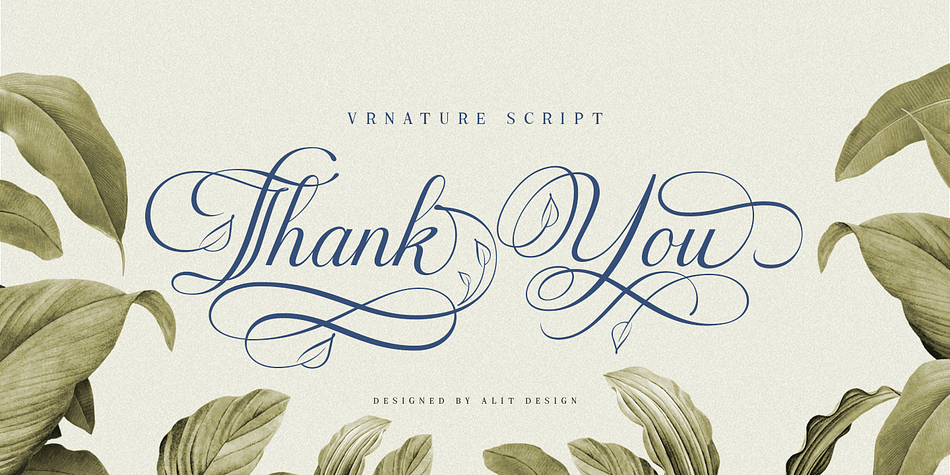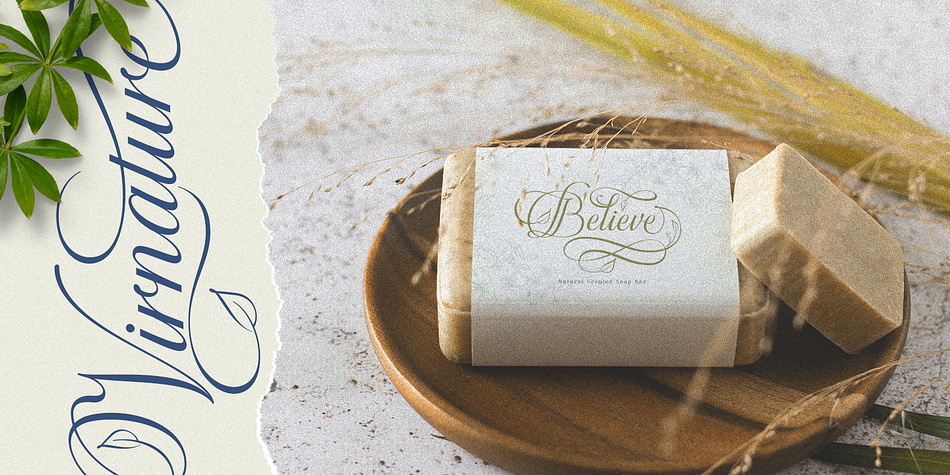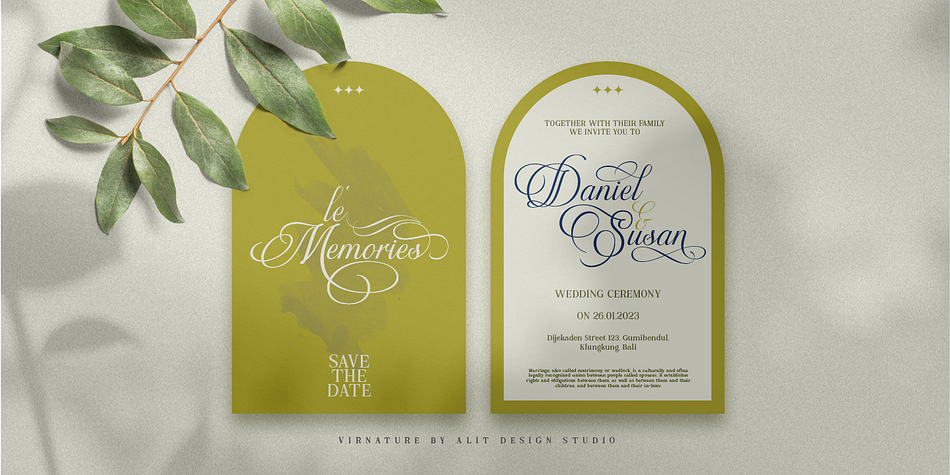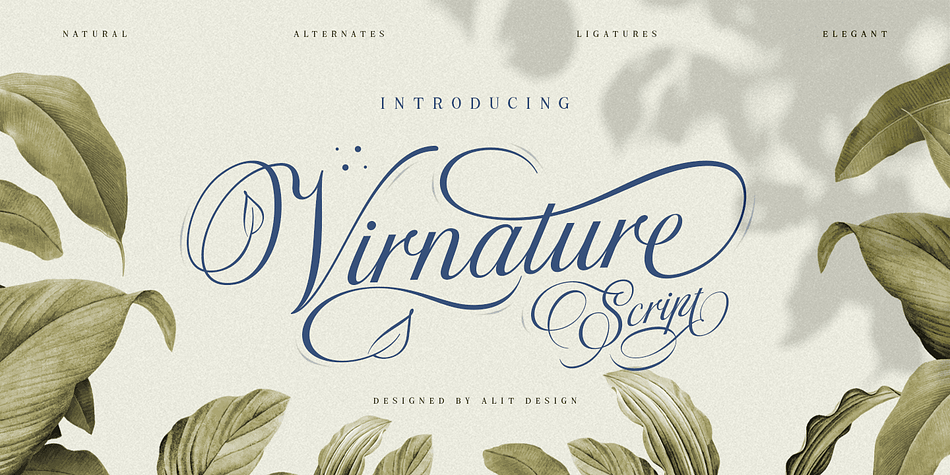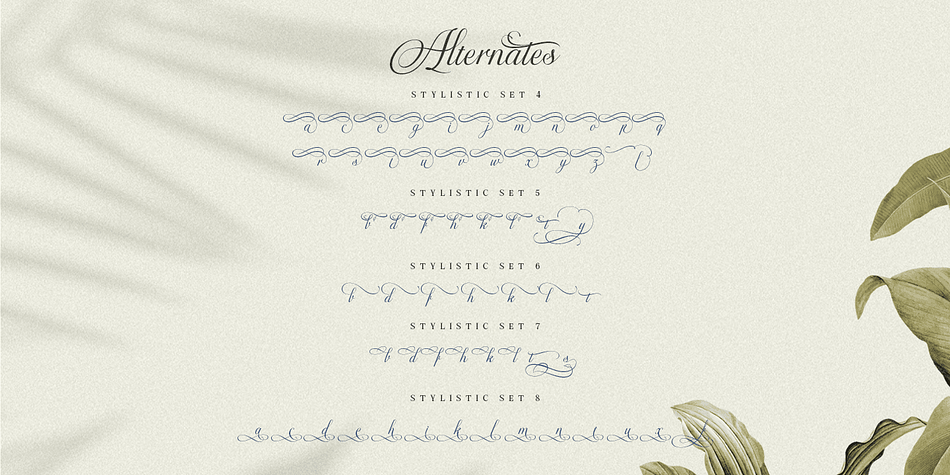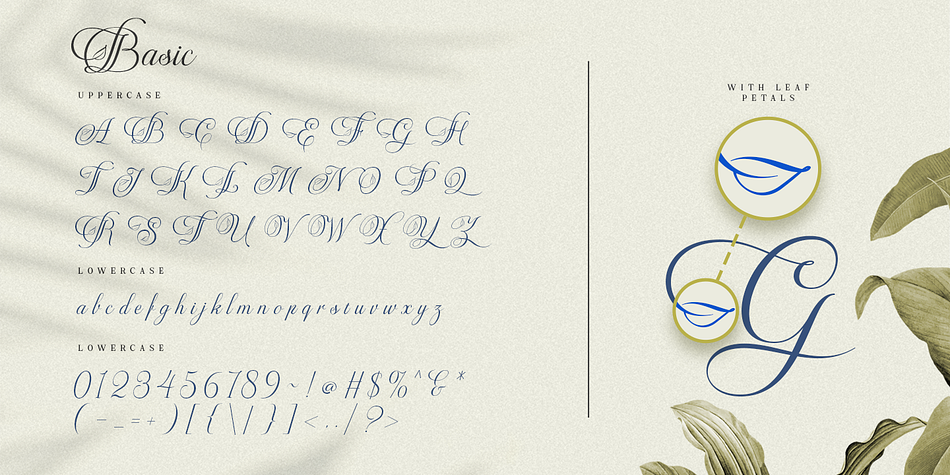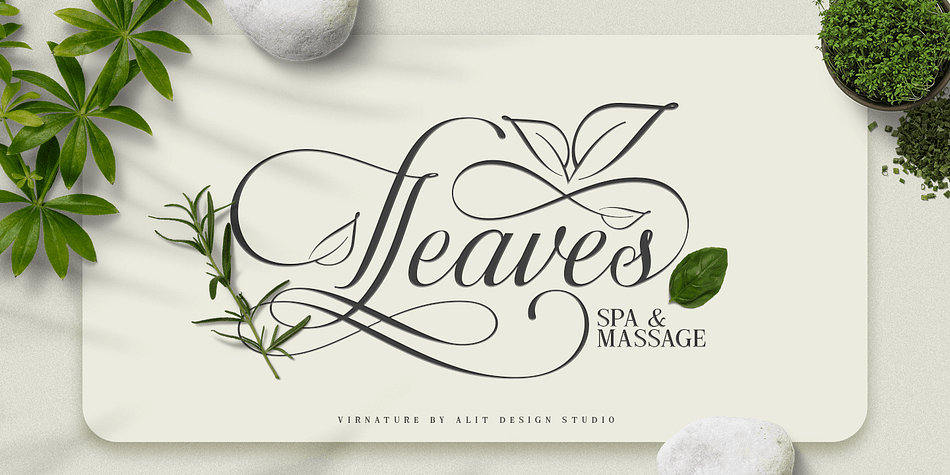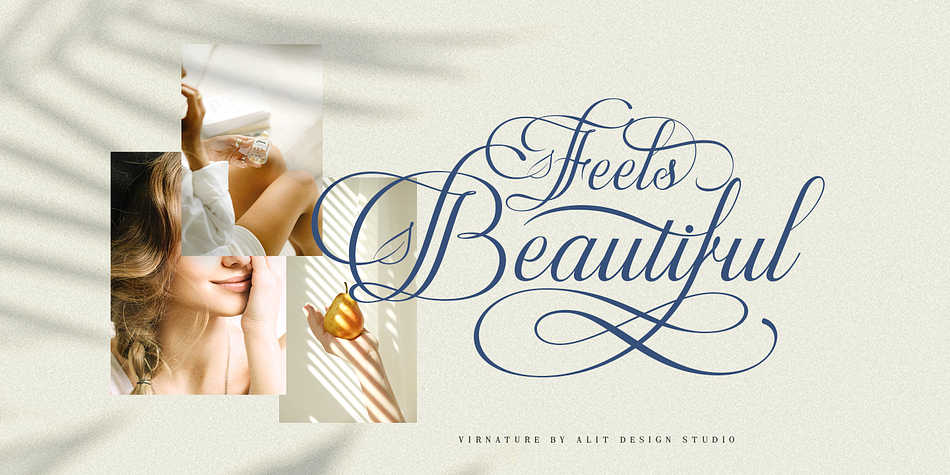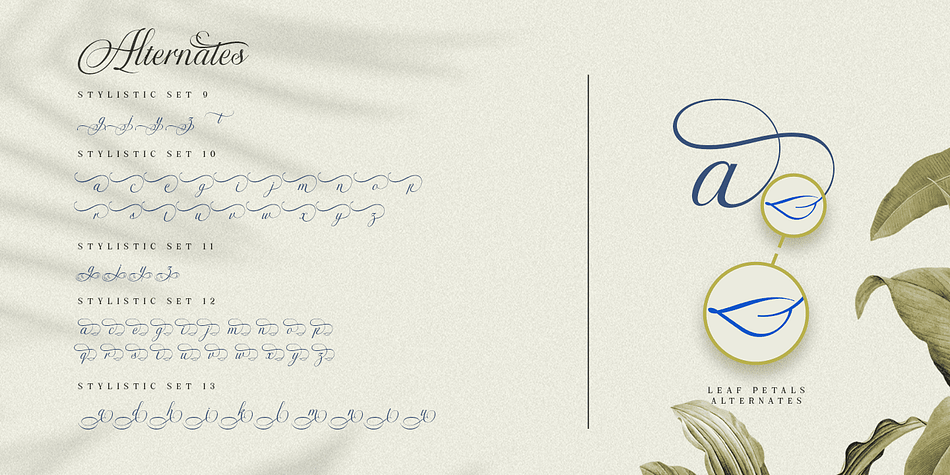
The Virnature
Designed by Alit Suarnegara, The Virnature is a script font family published by Alit Design.
Presenting ????The Virnature Nature Script Font???? by alitdesign.
Welcome to the Virnature font page, Thank you for visiting and finding this font. The Virnature font is inspired by elegant script fonts combined with the concept of nature. It can be seen by the beautiful and fitting leaf ornaments that make the Virnature font besides elegance also unique with the concept of nature.
The Virnature font includes full set of Uppercase and Lowercase Basic Characters, Numerals, Punctuation and Multi lingual support. Also it contains ligatures and a lot of stylistic alternatives to perfectly re-create natural calligraphy and nature concept designs (check the previews in order to see them all).
The Virnature font has alternatives that you can combine between swashes and symbols that have the theme of elegant nature. Besides that this font is very easy to use both in design and non-design programs because everything changes and glyphs are supported by Unicode (PUA).
The Virnature Nature Script Font has a total of 768 glyphs including symbol, multilingual.
Language Support : Latin, Basic, Western European, Central European, South European,Vietnamese.